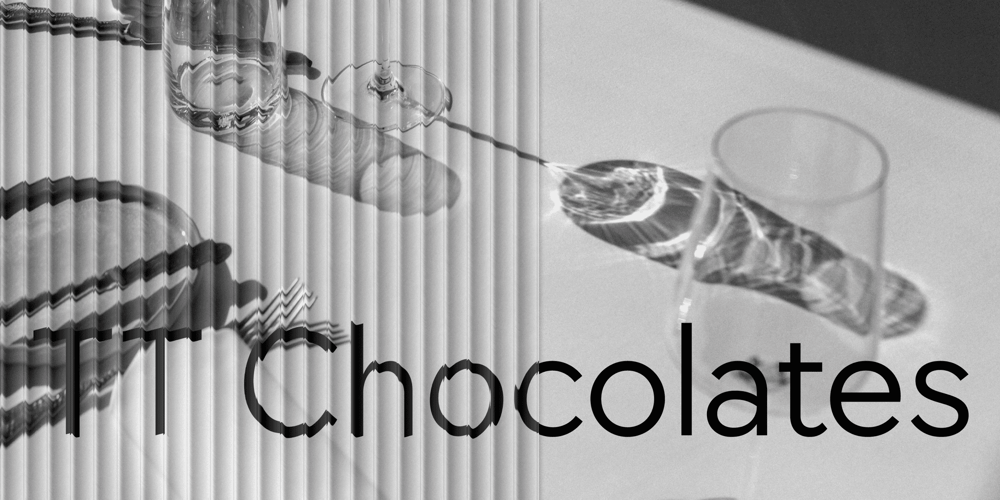
TT Chocolates Font Family was designed by Marina Khodak, Yulia Gonina, TypeType Team, Anastasia Pogorelova and published by TypeType. TT Chocolates contains 15 styles and family package options. Introducing the third reincarnation of TT Chocolates! The popular typeface was updated to stay up-to-date with the latest requirements and trends in design! TT Chocolates is an elegant Humanist sans serif with a dense typesetting and well-balanced proportions similar to the classical tradition. This font’s nice and friendly nature makes it seem like something close and familiar. It has earned a reputation among designers as the perfect font for confectionery, but the application range of the TypeType’s “sweetest” typeface goes well beyond that! In 2023, we decided to do a full-scale font update referring to extensive sans-serif market research. We figured out where the trends are headed and what users want—this information helped us enhance TT Chocolates. Specifically, we introduced a new Condensed font version, a narrow font style with the authentic proportions of the standard version. At the same time, TT Chocolates Condensed boasts a more expressive personality than the base subfamily, which allows designers to solve even more creative tasks using only one typeface. The third version of TT Chocolates has become even more modern and advanced. A large number of characters, various OpenType features, and stylistic sets make the font suitable for multiple purposes and tasks. TT Chocolates is a perfect match for both branding and layouts. The font’s dynamic shapes make it easy to read in small point sizes, allowing the eye to move effortlessly across the line. This typeface can also be used in web design due to the TrueType manual hinting option. TT Chocolates 3.000 includes: 29 font styles: 14 roman, 14 italic, and one variable font; Condensed version consisting of 14 new font styles; Carefully crafted contours; Optimized font rhythm and completely new kerning; Enhanced italics in basic subfamily; Variable font with three axes of variation: width, weight, and slant; 32 OpenType features, counting in 13 new ones; 901 characters in each font style—the character set has grown compared to the previous version, which had 629 characters in each font style; 230+ languages support, including the new ones: 35 Cyrillic-based and 16 Latin-based. Elevate your design’s appeal with TT Chocolates!